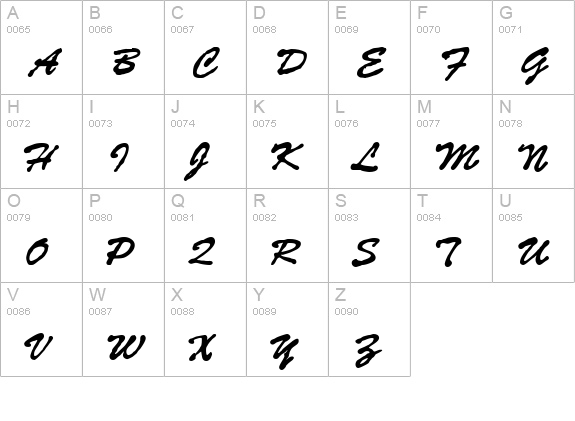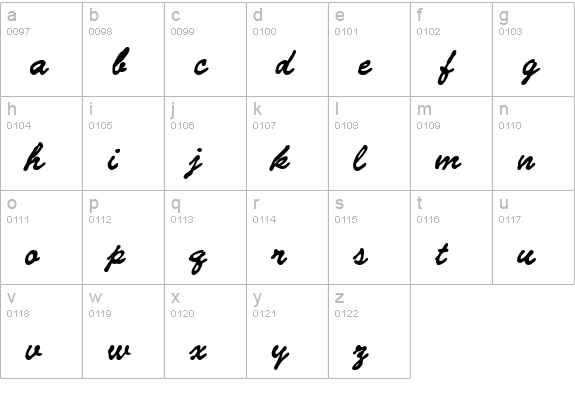
Bloop ScriptSolid Font Details
Introducing Bloop ScriptSolid font, a beautifully crafted typeface that exudes elegance and sophistication. This font is perfect for adding a touch of charm to your designs, whether it be invitations, logos, or branding materials. With its smooth lines and graceful curves, Bloop ScriptSolid font is sure to make a lasting impression. The best part? Bloop ScriptSolid font is completely free to download at FontsMarket.com. So, don't hesitate to enhance your projects with this stunning font today. Let your creativity shine with Bloop ScriptSolid font - the perfect choice for all your design needs.